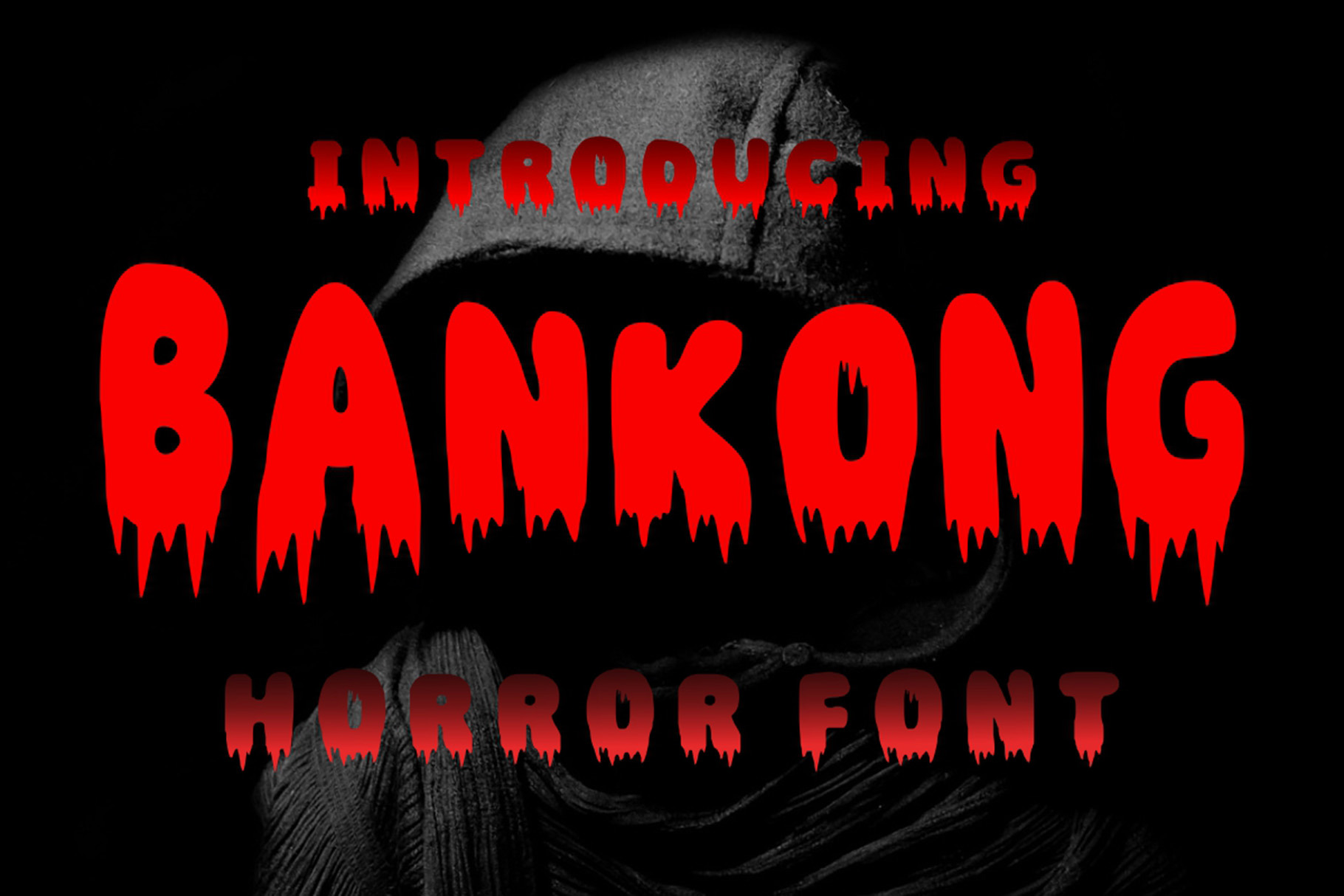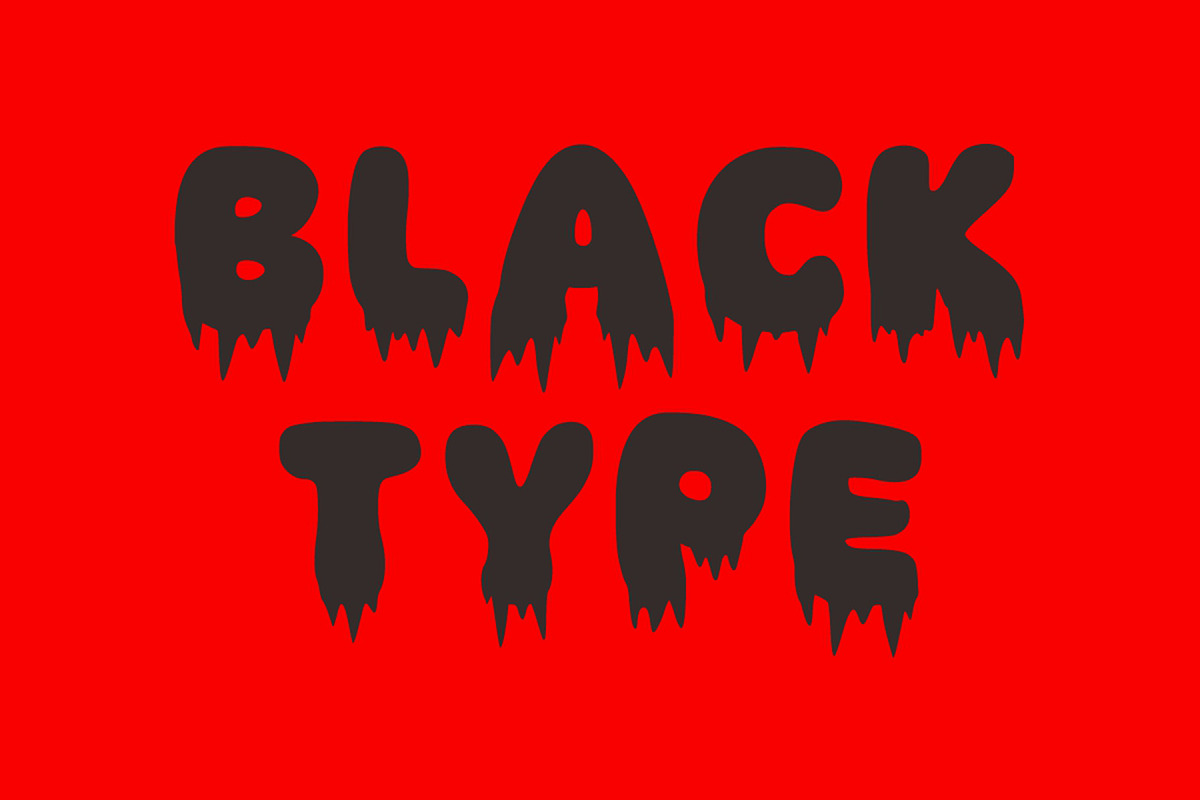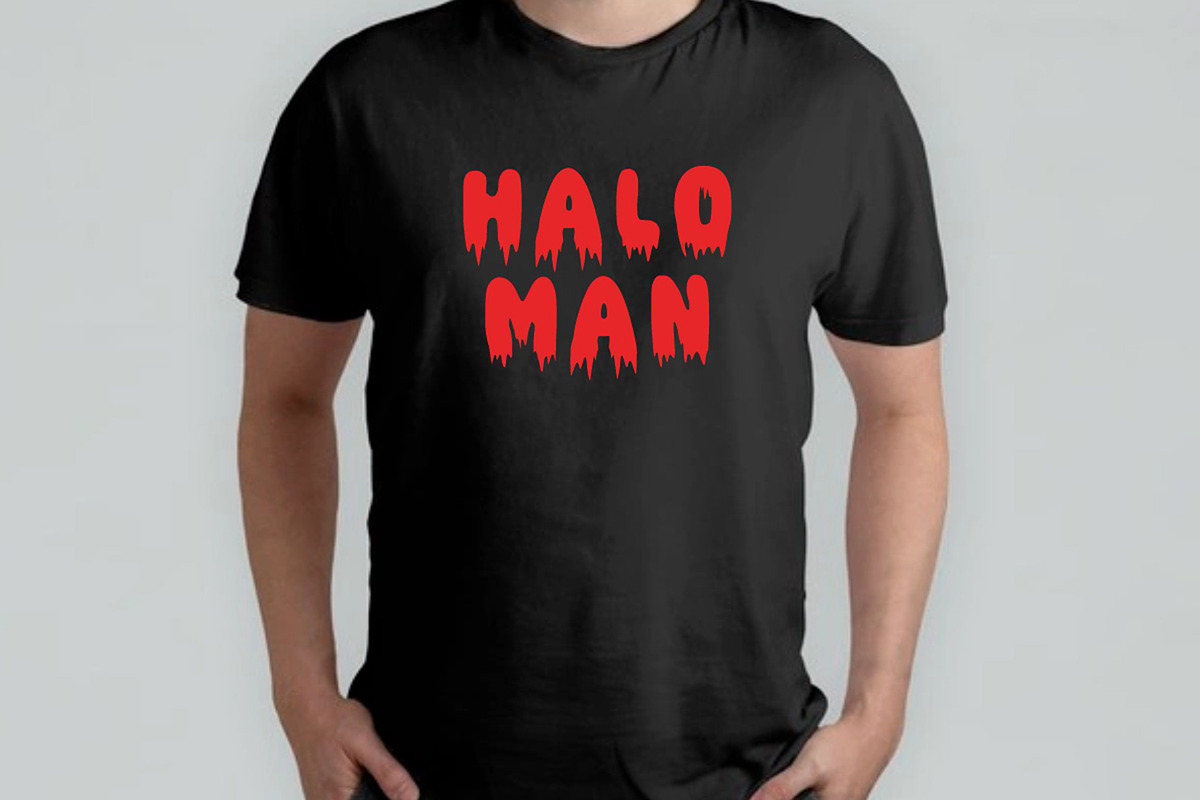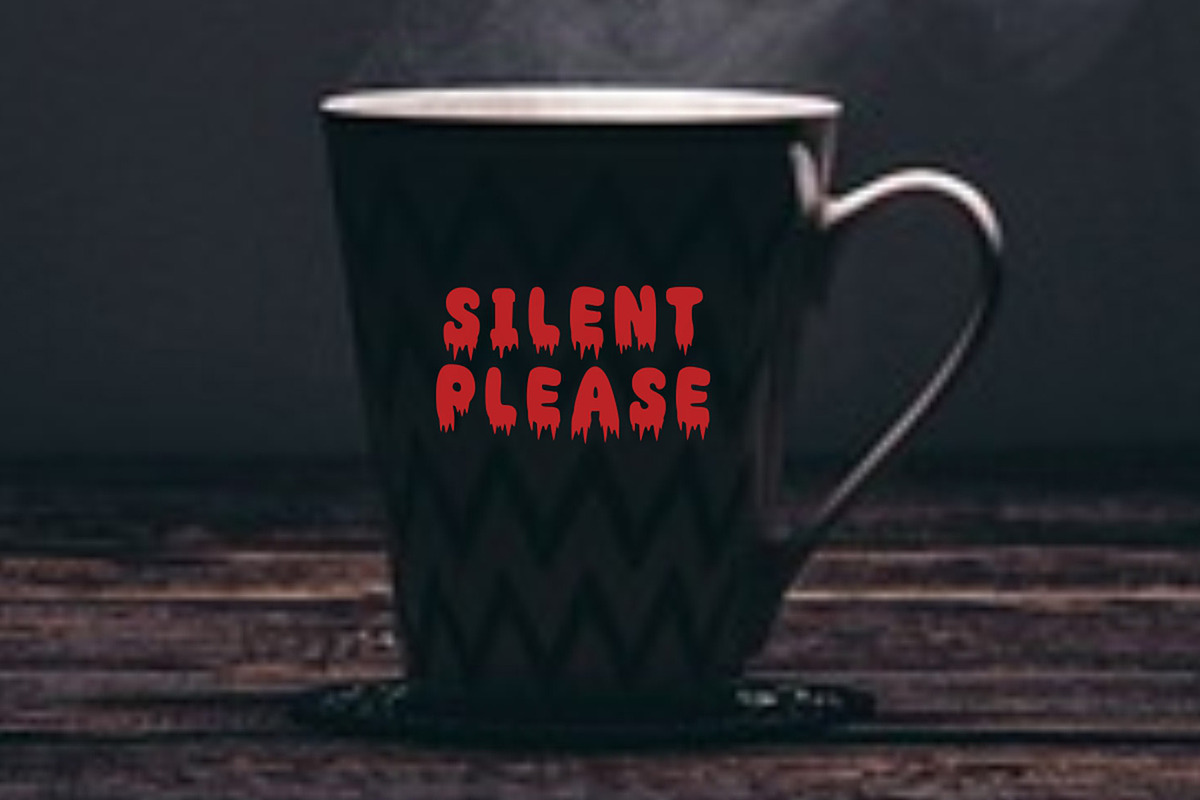
Bankong - Gothic Font
BANKONG is a Horror and scary display font. You can use it for various projects such as blog posts, logos, branding, ads, invitations, greeting cards, planners, photo albums, decorations, or anything related to Halloween or horror.